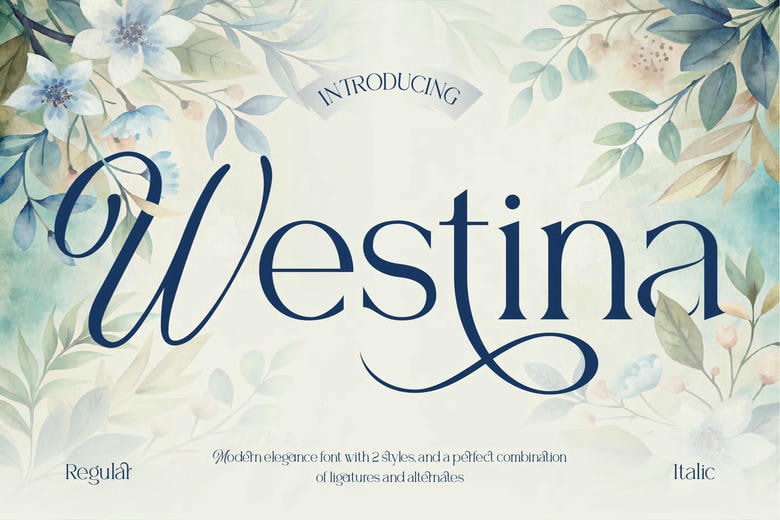
Westina Font
Westina is a high quality Serif font that is designed by Eric_Burntilldead and is available for free download and personal use. The free version provides all uppercase and lowercase letters and a few special characters too.
Westina Serif Font